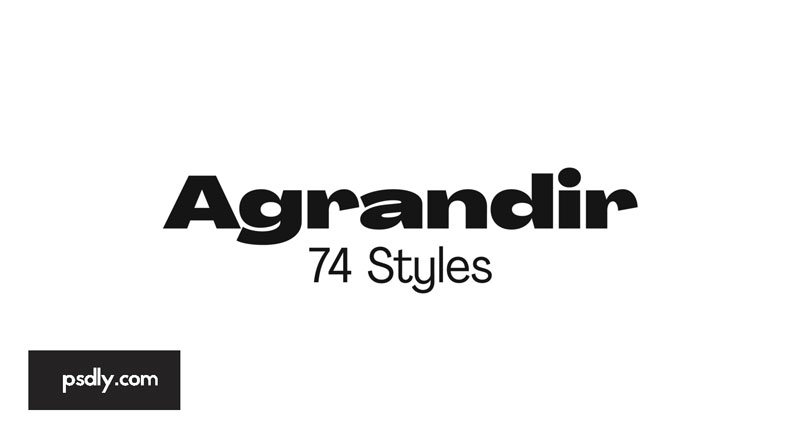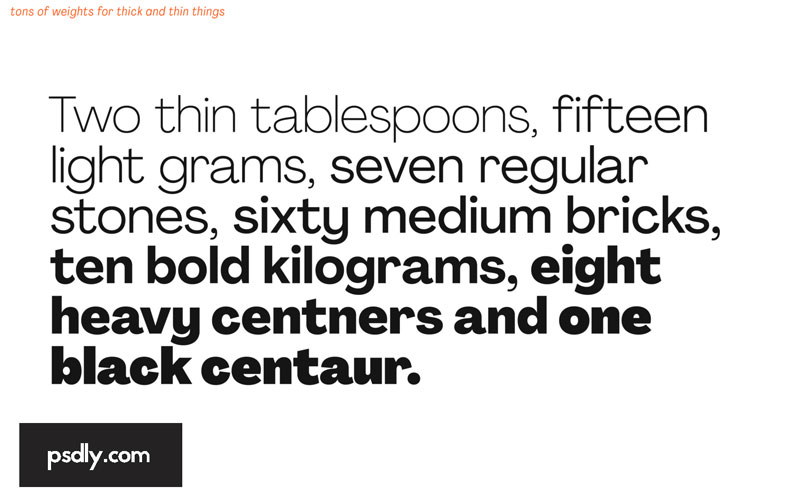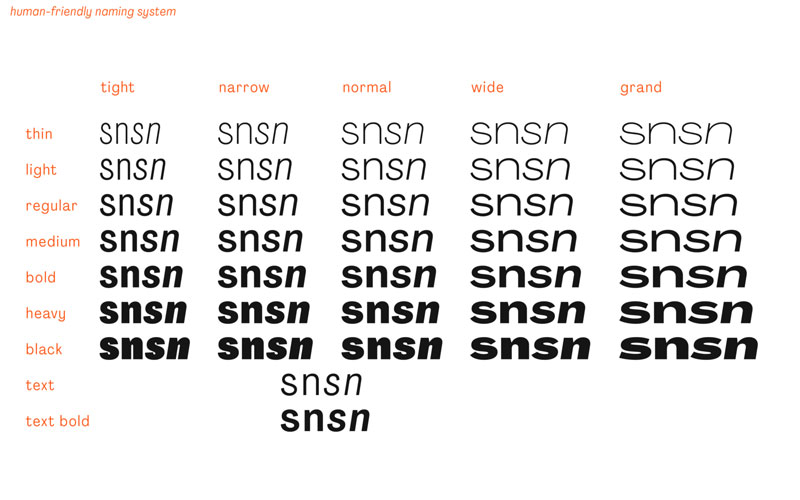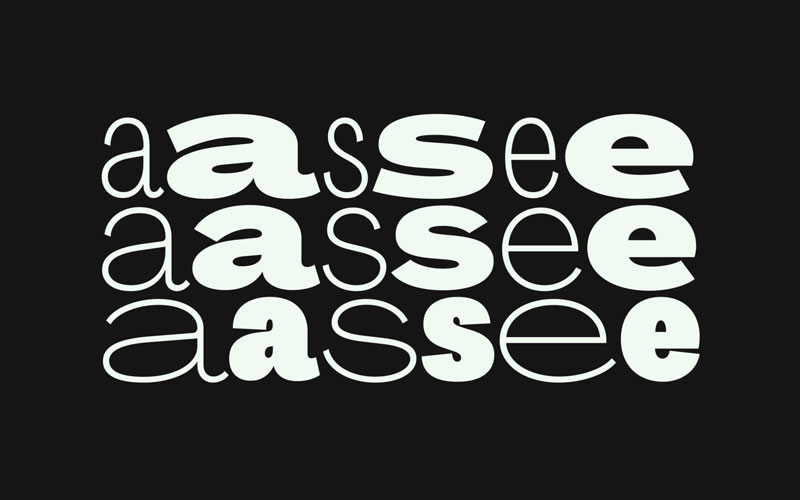
Agrandir V3 Font Family
Agrandir is a contemporary serifless type family that celebrates the beauty of being imperfect. It was designed to be a brave antipode to neutral modernist fonts. The type family consists of 74 fonts: 14 weights × 5 widths + 4 extra text weights. Also checkout Mochido – Bounce and Bold Font 4935948.
Agrandir Font Family
Each font features a fairly good number of OpenType stylistic alternatives. With its wide variety of flavors and tight spacing. Agrandir is suitable for big size headlines, websites, logos, and posters. Loosen the tracking and it’s good for small size texts as well.